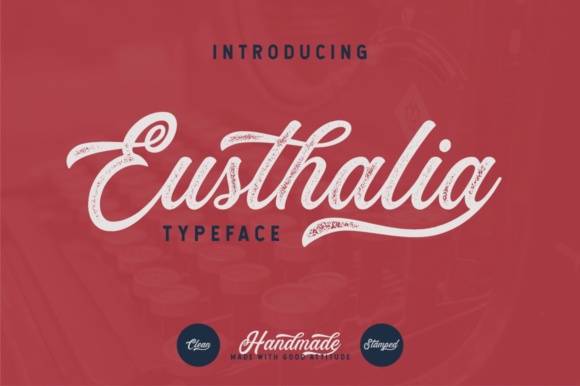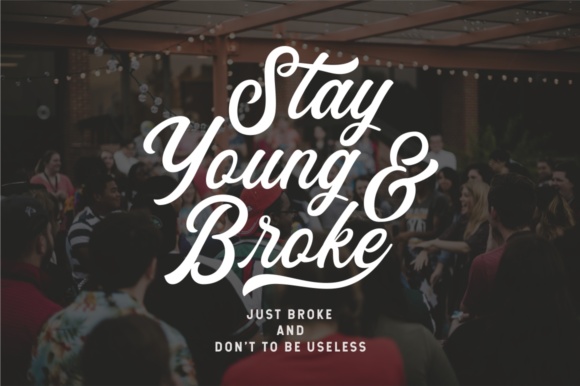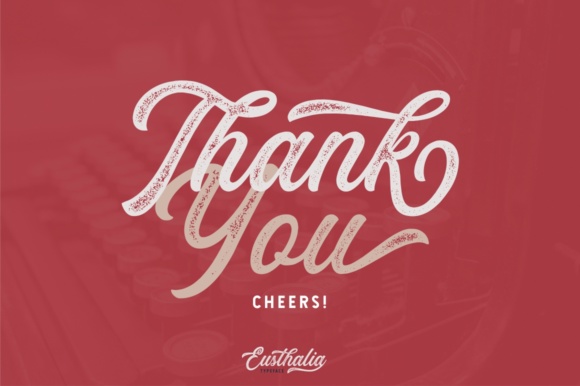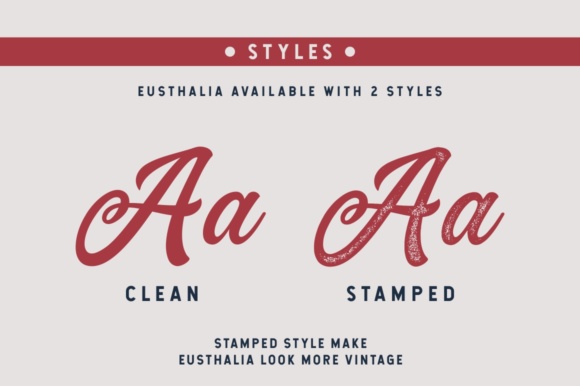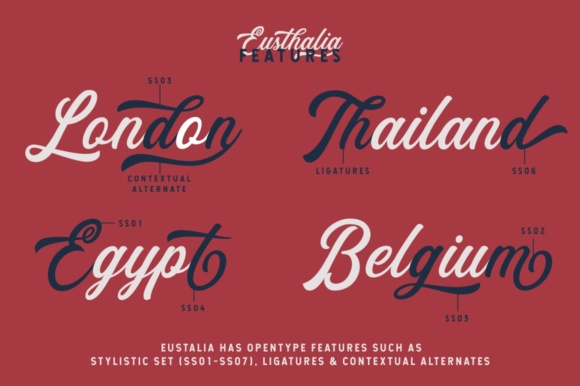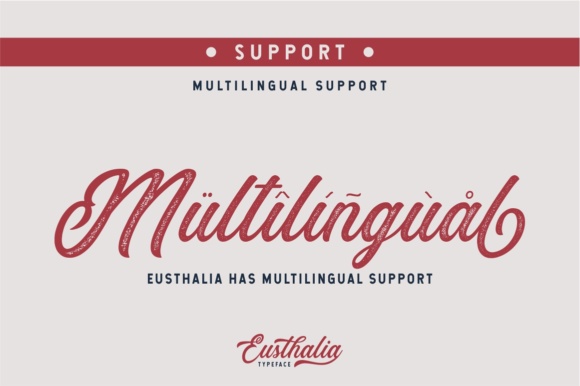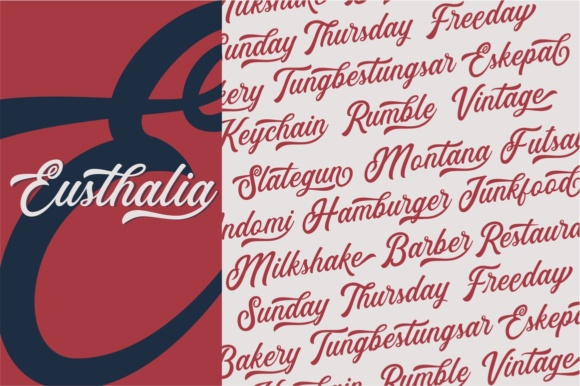
Eusthalia Font
About Eusthalia Font
Eusthalia is a script font which has two styles, Clean and Stamped. With those styles, Eusthalia Typeface can be use in vintage designs..
Eusthalia is great for branding Design, logo Design, digital lettering arts, T-shirt/apparel, poster and any other vintage designs.